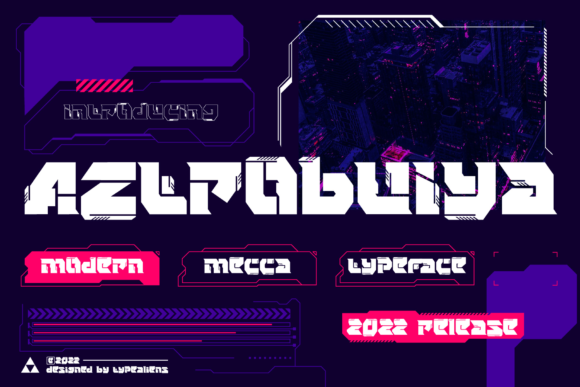
Unleash your imagination and dive into the captivating world of Aztrobuiya Font, a visionary display font that transcends the boundaries of ordinary typography. Crafted by the ingenious minds at typealiens, Aztrobuiya bursts onto the scene with its bold and distinctive style, paying homage to the allure of futuristic designs and the enigmatic realm of robot costumes. Prepare to be mesmerized as this font breathes life into your creative endeavors.
Aztrobuiya's carefully designed characters exude an air of mystery and enchantment, effortlessly capturing the essence of otherworldly narratives. Its captivating curves and sharp angles dance in perfect harmony, creating a visual symphony that will leave you spellbound. Whether you're a seasoned designer or just starting your creative journey, Aztrobuiya will elevate your projects to new heights of distinction.
Harness the power of Aztrobuiya to bring a touch of intrigue and sophistication to your character fashion designs. Imagine your creations adorned with this extraordinary font, their enigmatic aura captivating the hearts of all who behold them. Let Aztrobuiya be your secret weapon in crafting designs that defy convention and leave an indelible mark on the fashion world.
But Aztrobuiya's versatility extends far beyond the realm of fashion. Its captivating presence lends itself seamlessly to a myriad of design projects, from steam punk creations to captivating logos and branding materials. Allow Aztrobuiya to ignite your imagination and unlock a world of boundless possibilities.
With Aztrobuiya by your side, you'll embark on a creative odyssey like no other. Its narrow text capabilities make it the perfect choice for creating captivating headlines, eye-catching posters, and captivating social media graphics that demand attention. Let your words dance across the screen, captivating your audience with their enigmatic allure.